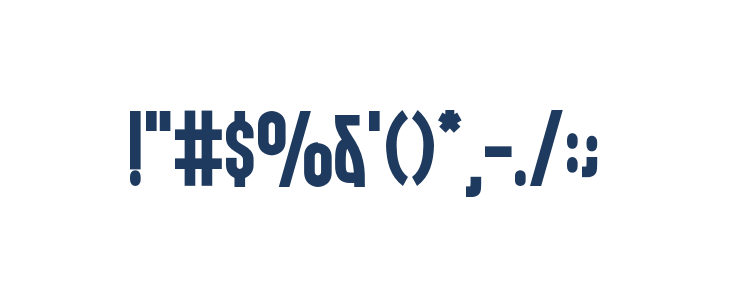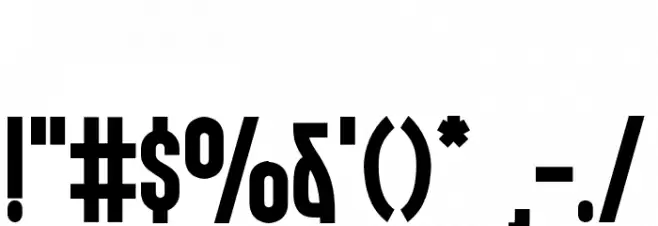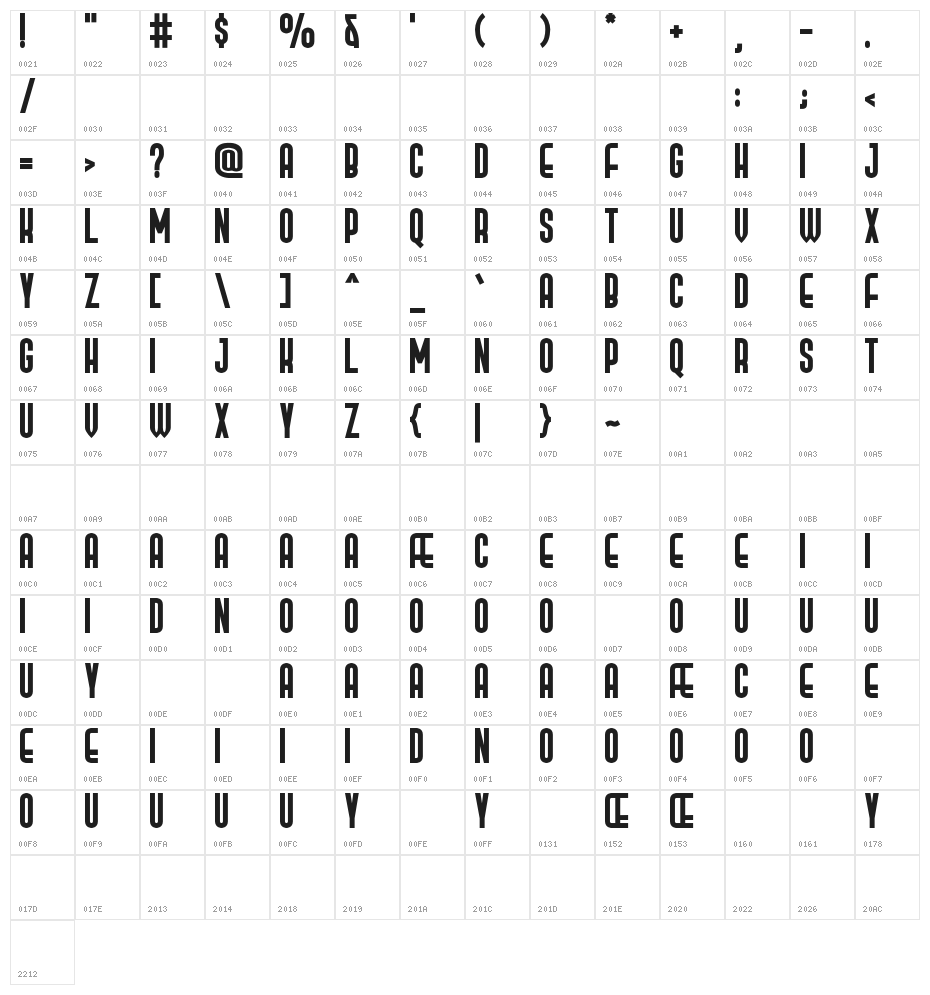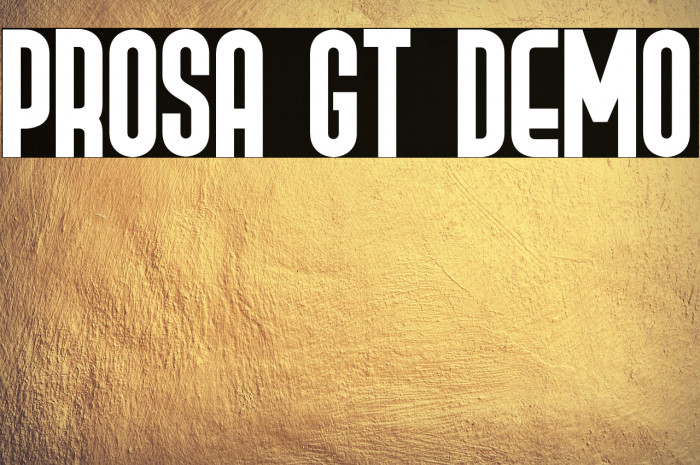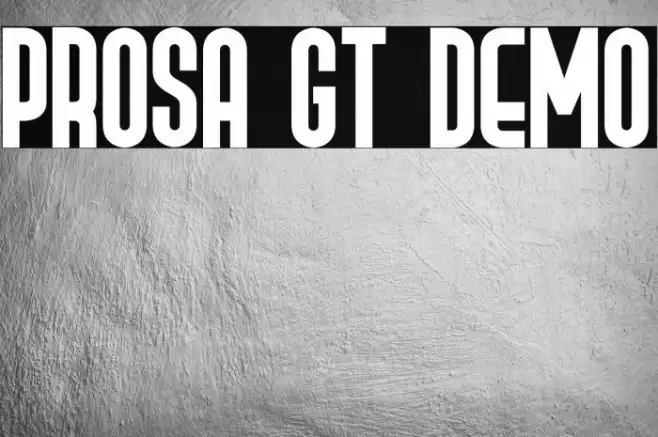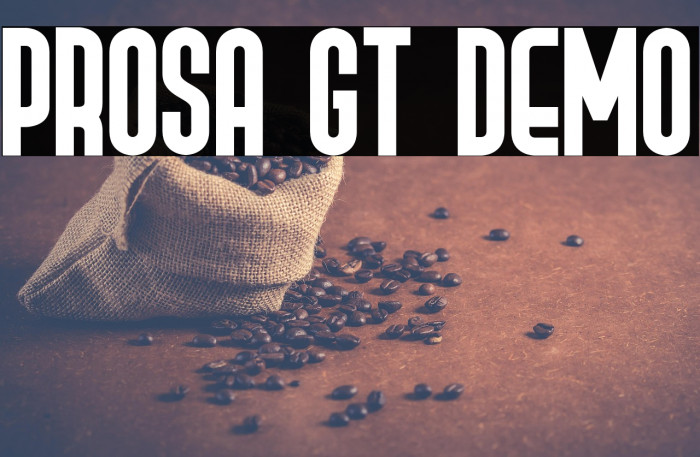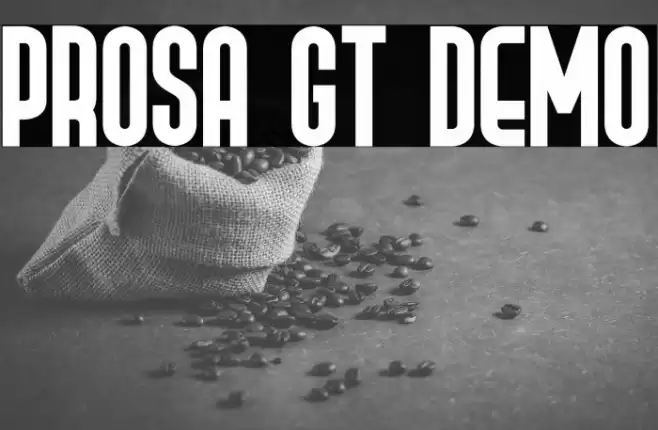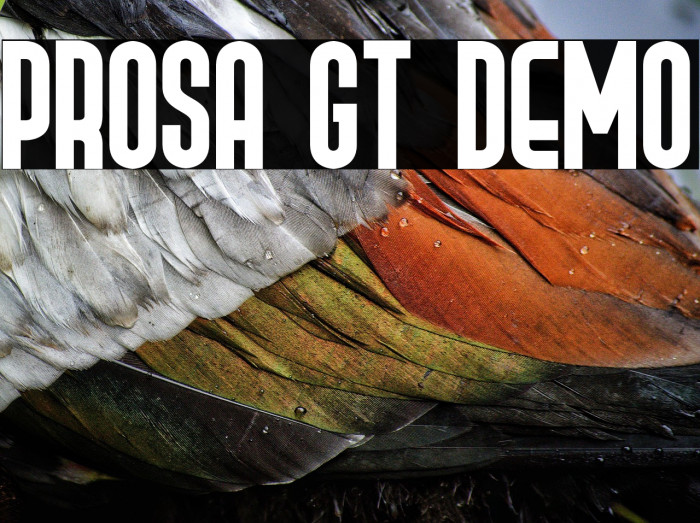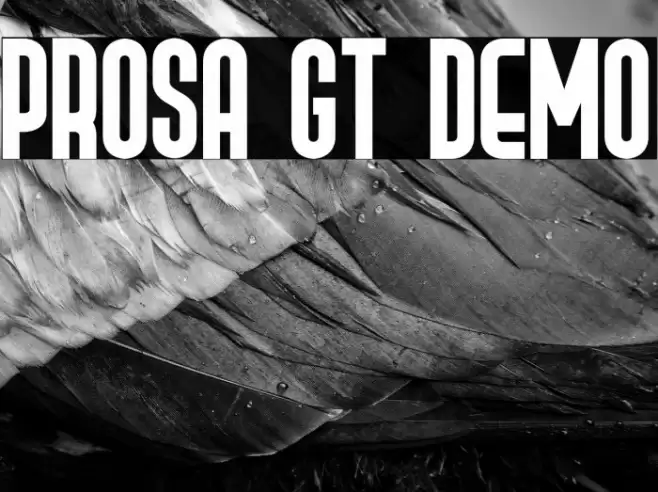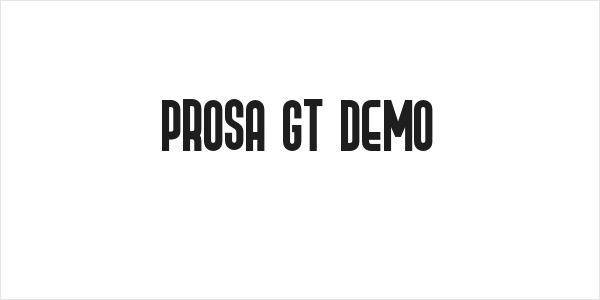
Prosa GT Demo Font
Prosa GT Demo Description
This font features bold, geometric letterforms with a strong presence. The uppercase letters are tall and narrow, creating a condensed appearance that emphasizes verticality. The strokes are consistent in width, contributing to a uniform look across all characters. The font includes a full set of uppercase letters, numbers, and a variety of special characters, making it versatile for different uses. Its boldness and condensed style make it particularly suitable for impactful headlines and attention-grabbing designs.